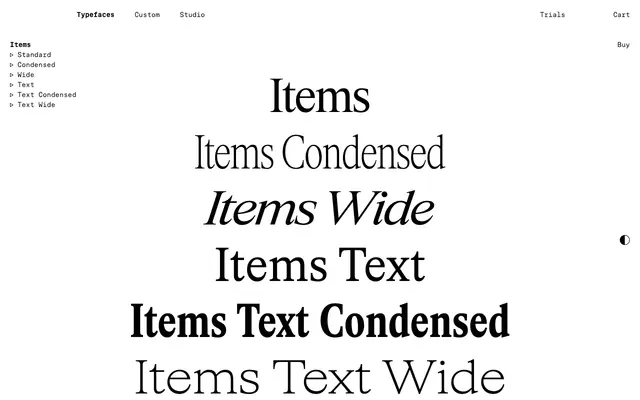
Items
A Times-lineage transitional serif system in Display and Text branches, three widths each, plus monospace styles and pixel-icon extras evoking 1980s DTP.
Items is a contemporary serif tied to the pervasive serifs of the early digital period, drawn to overcome the limitations of Times and its peers. A consistent contrast axis and constant top-serif angle across weights, plus carefully modulated blacks and shapely whites, give it an even typographic colour. The family has two branches: Items, with tight letter fit for larger sizes and tapered joints, and Items Text, with subdued contrast and open spacing for body copy. Each branch offers three widths (Standard, Condensed, Wide) in seven weights with matching italics, plus a Monospace style with fixed proportions and spindly strokes that nods to Latin glyphs in fonts made for Chinese and Japanese scripts. A variable version covers optical size and weight axes. Extras include ligatures, alternates, multiple numeral sets and a pixel set of arrows, punctuation and icons that reads as a homage to Susan Kare.
Schick Toikka tie Items to the pervasive serifs of the early digital period, with Times New Roman as the central reference: Times shipped on the first laser printers from IBM and Xerox and on Apple's LaserWriter, was a core font in Microsoft Windows from 1990, and was for many years one of just two feasible options for serif text on the web.